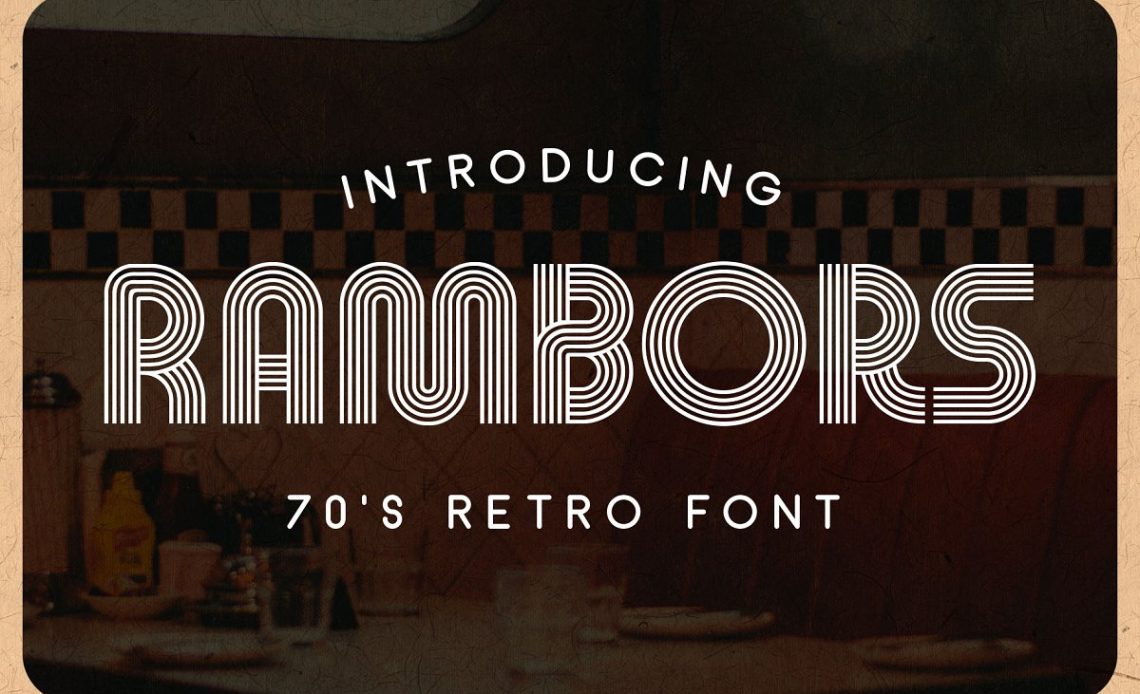
Looking for the perfect font to elevate your hipster-inspired designs? Look no further than Rambors, the retro font created by Ahmad Ramzi Fahruddin. This font family is the best font for hipster-inspired designs, and it's sure to make your work stand out from the crowd.
Inspired by the design aesthetic of the 70s, Rambors brings a futuristic touch and a fun, graphic look to any project. It's a nostalgic typeface that's perfect for modern-futuristic designs and contemporary styles. Whether you're designing a poster, flyer, motion graphic, or sticker, Rambors is the perfect choice for headlines that need to catch the eye.
Rambors is an all-caps font with different uppercase and lowercase characters, providing endless possibilities for exploring alternative designs. The font is also completed with alternate characters, giving you even more creative freedom to experiment with your designs.